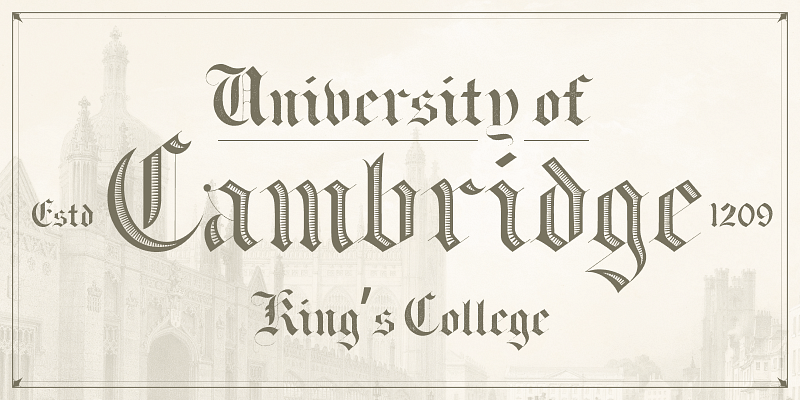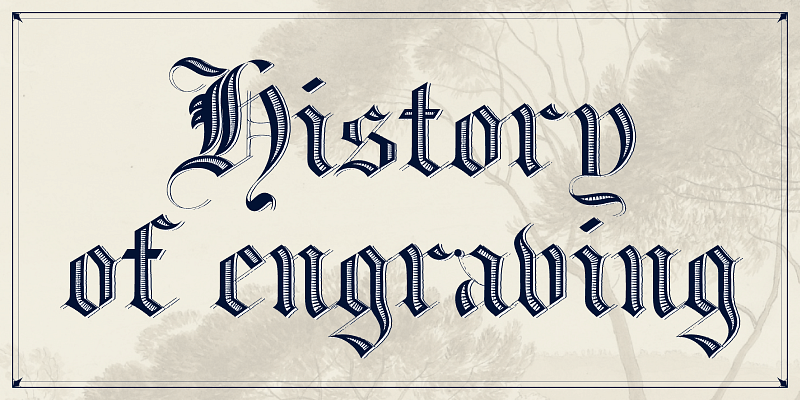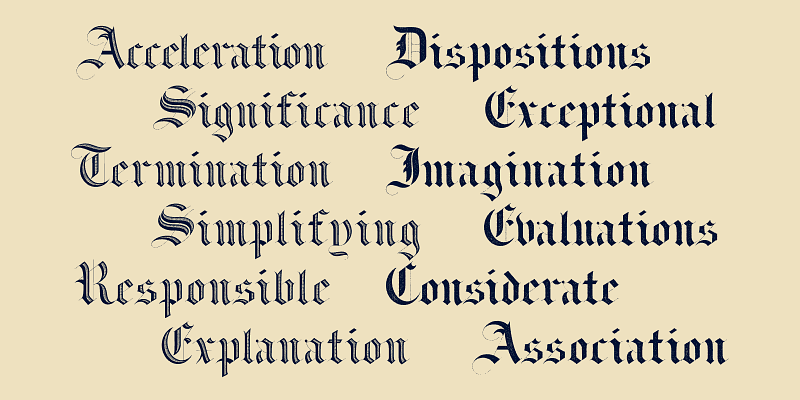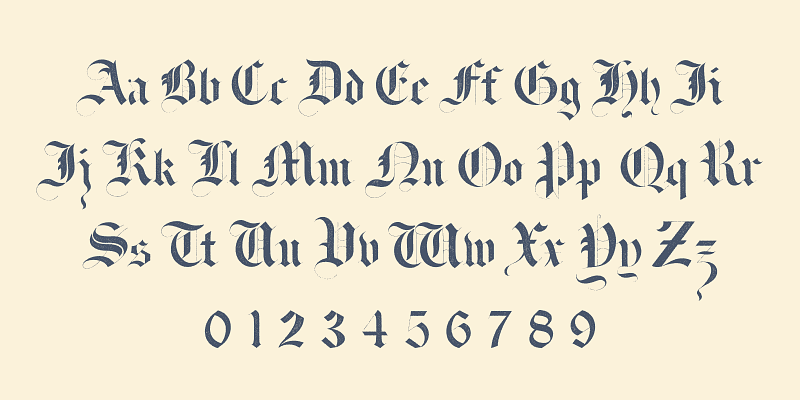
Vintage Voyage Design’s Harbour is a classic blackletter design in two styles: Decor and Rough. Inspired by the high-contrast lettering that might be found on copperplate engravings from the 19th century and earlier. The sharp contrast and inline detail of Harbour Decor and the texture of Harbour Rough give an authentic hand-lettered feel. Harbour is ideal for vintage logos and brands, pub signage, thrifted apparel labels and t-shirts, and masked ball party invitations.